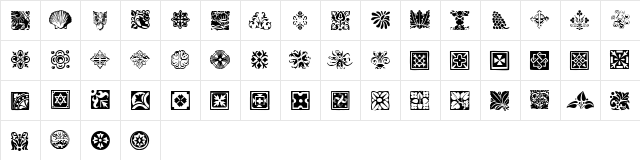
Printers Ornaments Regular
Design Context for Printers Ornaments Typeface
Printers Ornaments brings ornamental detail and strong personality to headlines and identities, where visual impact matters more than quiet functionality.
Font Pairing: Pair with a clean neutral sans-serif for body copy to let Printers Ornaments's character lead without overwhelming the composition.
Pro Tip: Use Printers Ornaments exclusively at display sizes — it was designed to be seen, not read at length. Let a neutral companion handle body copy.